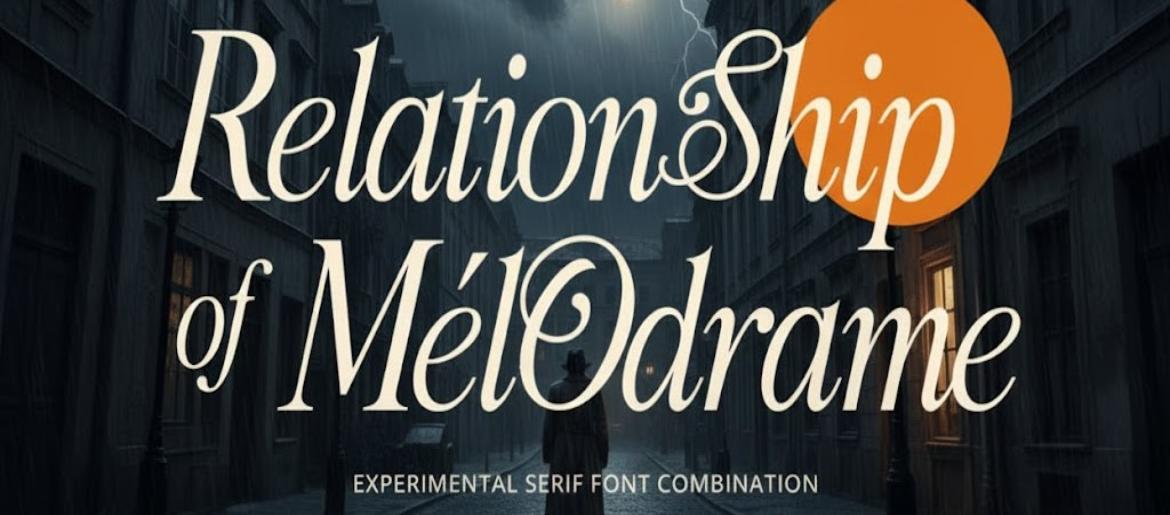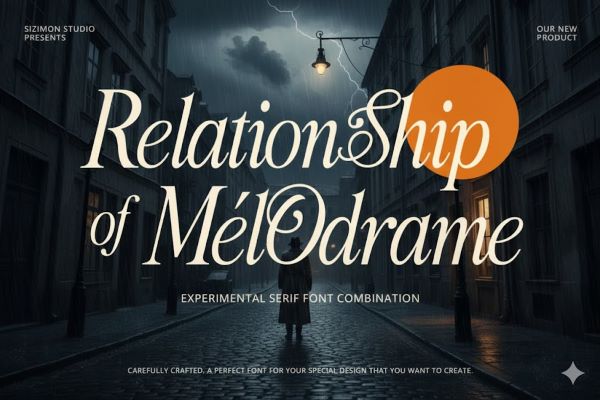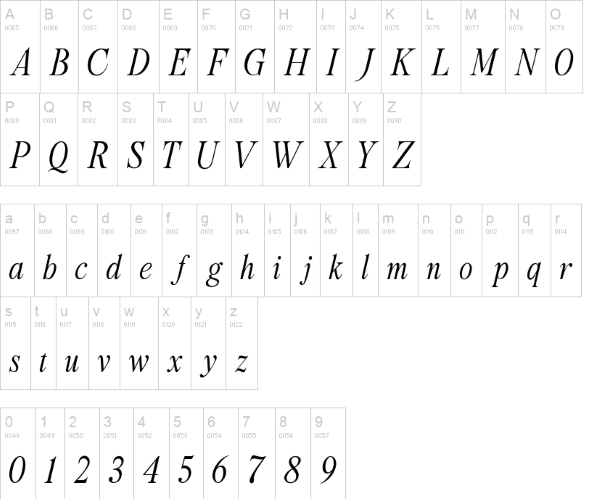
Relationship Of Melodrame Font
Relationship Of Melodrame Font is a dramatic, expressive typeface with bold, stylized character ideal for emotional and artistic designs. Its exaggerated strokes and unique letter shapes create a theatrical, eye-catching look perfect for posters, headlines, logos, storytelling visuals, and creative branding that needs flair and personality.
➤ Font Name: Relationship Of Melodrame
➤ Designer: Sizimon.id
➤ Style: Serif
Relationship Of Melodrame Font